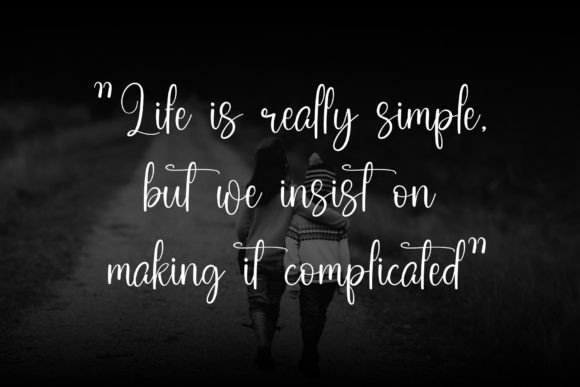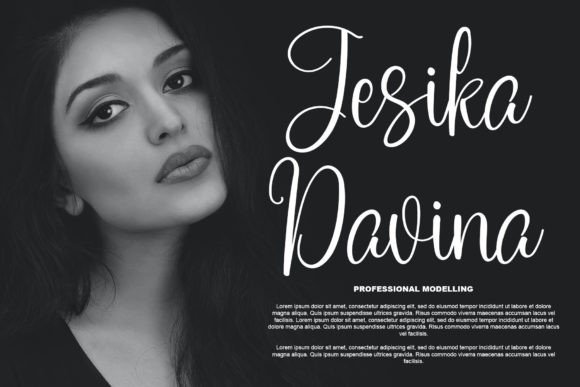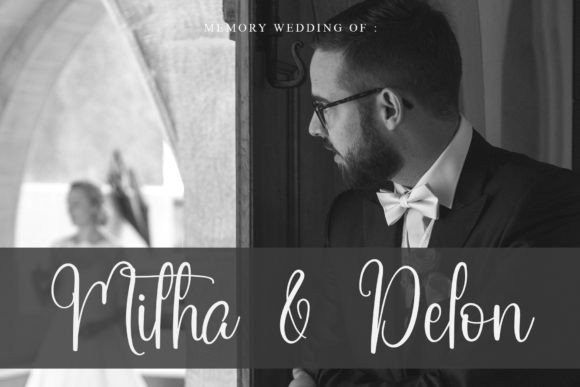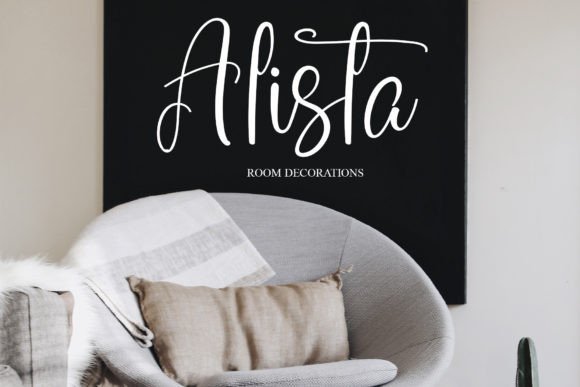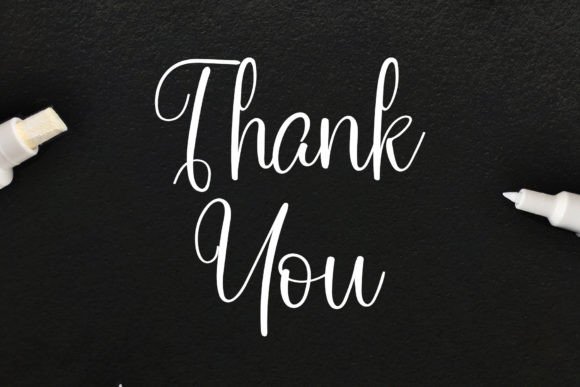
The Art of Elegant Typography: Unlocking the Power of Calligraphy Font
Have you ever found yourself scribbling notes in a beautifully designed journal, only to be captivated by the way your handwriting flows across the page? That’s the magic of calligraphy – a timeless art form that has been inspiring creatives for centuries. Today, we’re excited to introduce you to Calligraphy Font, a stylish handwritten font that captures the essence of classic calligraphy in a modern, contemporary package.
Designed to enhance the beauty of your projects, Calligraphy Font is a versatile tool for designers, artists, and writers alike. Its balanced and varied style makes it perfect for everything from branding and advertising to publishing and packaging. Whether you’re looking to add a touch of elegance to your next design project or simply want to elevate your personal style, Calligraphy Font is a valuable asset to have in your creative arsenal.
Key Features of Calligraphy Font
• Unique Characteristics: The Calligraphy Font features intricate, handwritten letterforms with subtle flair and connection between letters, giving it a distinctive and elegant look.
Designer Review: Calligraphy Font
As a designer, I recently had the chance to work with the “Calligraphy Font” and I must say it’s a mixed bag. Let’s start with what works well: ✨ The font’s elegance and sophistication are perfect for formal invitations, wedding designs, and luxury brand materials. It’s also incredibly versatile and can be easily customized to fit different styles and themes. ✨ The font’s fluid lines and cursive script make it perfect for adding a touch of whimsy and romance to any design.
Now, let’s talk about the limitations: ⚠️ The font can be quite difficult to read in smaller sizes, which may limit its use in certain contexts. ⚠️ Additionally, the font’s complexity can make it challenging to pair with other fonts, which may require some extra design effort. ⚠️ Lastly, the font’s file size can be quite large, which may slow down design loading times.
Overall, I’d say the “Calligraphy Font” is a solid choice for designers who need a sophisticated and elegant font for formal or luxury designs. However, it may not be the best choice for designers who need a font that’s highly legible or easy to pair with other fonts.
Rating: 3.5/5
• Best for: Formal invitations, wedding designs, luxury brand materials
• Not recommended for: Small text sizes, complex design compositions, fast-paced design environments
Getting the Most Out of Calligraphy Font
Use a calligraphy font to add a touch of elegance and sophistication to your designs. Experiment with different font styles and sizes to create unique visual effects.
Calligraphy font is commonly used for:
– Titles and headings
– Artistic and creative projects